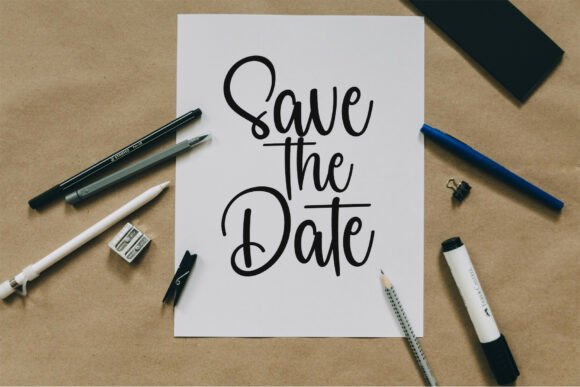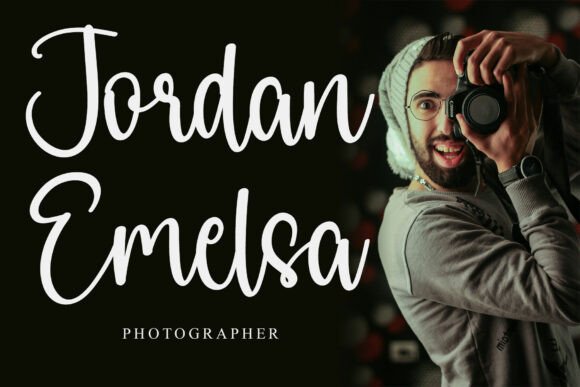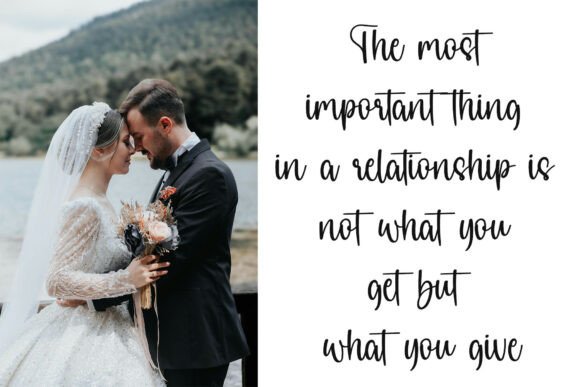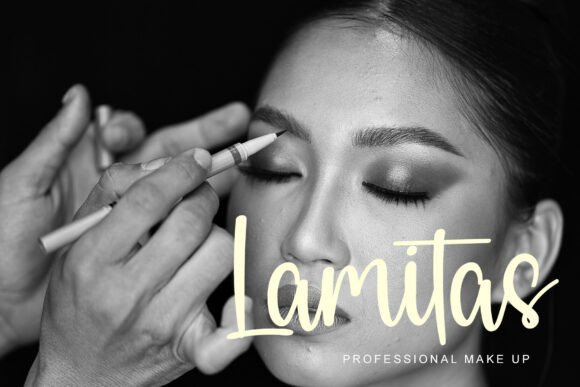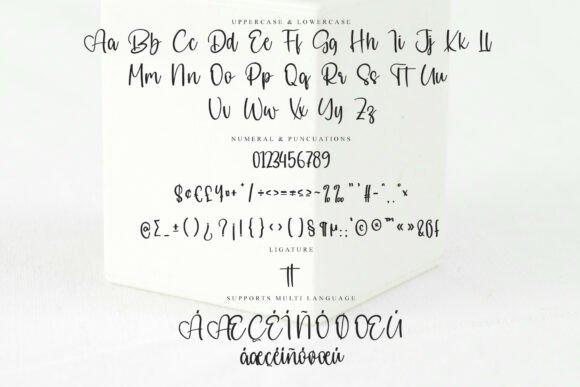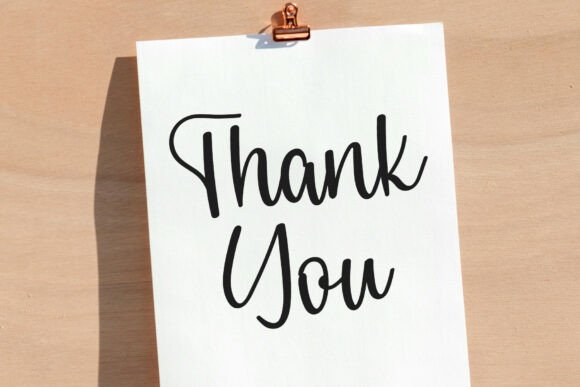
Discover the Magic of Bunny Font: Elevate Your Designs to New Heights
As a creative, there’s nothing quite like the thrill of bringing a new idea to life. You’ve spent hours brainstorming, sketching, and experimenting – and finally, it all comes together in a spark of inspiration. That’s exactly what happened when we stumbled upon Bunny Font, a truly enchanting handwritten font that adds a touch of elegance to any design.
With its whimsical flair and effortless charm, Bunny Font is perfect for Instagram-worthy posts, calligraphy scripts, or DIY projects that require a personal touch. Whether you’re a seasoned designer or just starting out, this font is sure to elevate your creative vision and leave a lasting impression on your audience.
Bunny Font Key Features
- Unique Characteristic: Bunny Font features a unique, hand-drawn design with a playful and whimsical feel, making it perfect for creating eye-catching and engaging visual content.
Bunny Font Review
I recently had the chance to work with the “Bunny Font” and I must say, it’s a unique and playful addition to any design project. ✨ The font’s rounded edges and cute aesthetic make it perfect for children’s books, nursery decorations, or any project that needs a touch of whimsy. ✨ The font is also highly customizable, allowing designers to adjust the size, color, and even add custom effects to make it stand out. ✨
However, there are a few limitations to consider. ⚠️ The font can be a bit too cute for some projects, and may come across as immature or unprofessional. ⚠️ Additionally, the font’s rounded edges can make it difficult to read at small sizes, and may require additional design elements to make it more legible. ⚠️
Overall, I would give the “Bunny Font” 4 out of 5 stars. It’s a great choice for designers looking for a fun and playful font, but may not be suitable for all projects. Here are a few pros and cons to consider:
- ✨ Highly customizable
- ✨ Perfect for children’s projects or nursery decorations
- ⚠️ May be too cute for some projects
- ⚠️ Difficult to read at small sizes
- ⚠️ Requires additional design elements for legibility
Getting the Most Out of Bunny Font
To get the most out of Bunny Font, use it for whimsical and playful designs, such as children’s party invitations, Easter-themed graphics, or cartoon characters.
Bunny Font is commonly used for:
– Children’s party invitations and decorations
– Easter-themed graphics and designs
– Cartoon characters and animations
– Whimsical and playful designs
Can I use the Bunny Font for logo design or branding?
Yes, the Bunny Font can be used for logo design and branding. However, it’s essential to ensure that the font is legible and scalable for various applications, such as business cards, billboards, or merchandise. You may also consider customizing the font or creating a custom logo to better suit your brand identity.